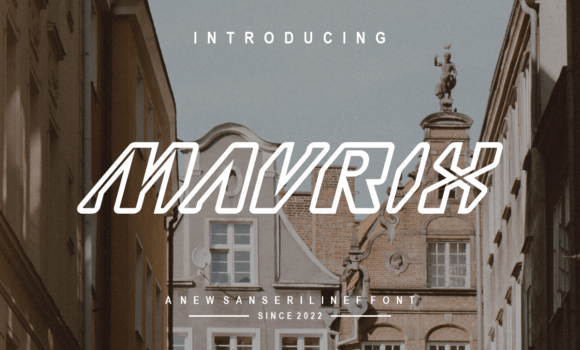
mavrix
Mavrix Font – Free Download Introduction to Mavrix Font Mavrix is a sweet and elegant display font. 📸 Preview Gallery 4 images 📌 Product Name Mavrix Font 👤 Author warehouselogo7 📂 Category Explore ⬇️ Download Mavrix Font FREE Free Download